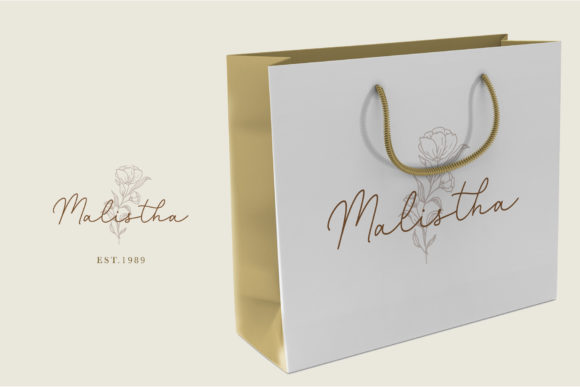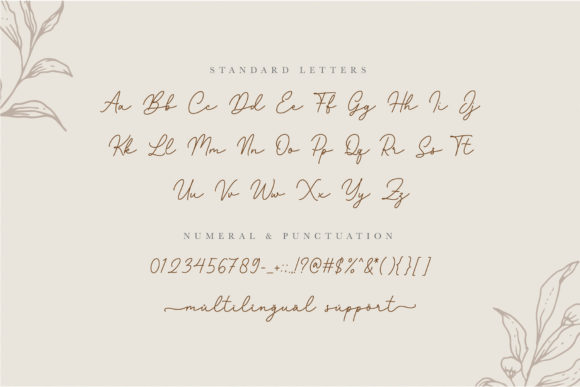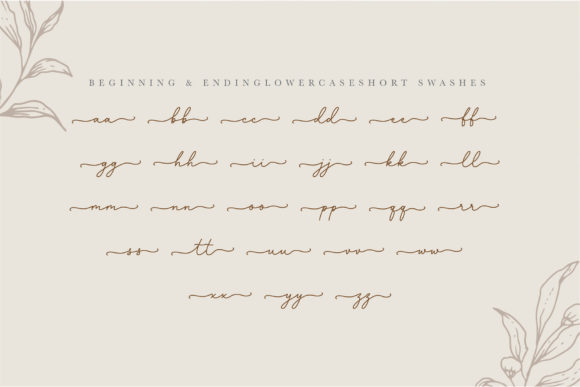
The Quest for the Perfect Font: Discovering Gatkins
I still remember the frustration of scrolling through font after font, searching for the perfect one to bring my design project to life. It was for a wedding invitation, and I wanted something that exuded romance and elegance. That’s when I stumbled upon Gatkins, a beautiful and romantic script font that has since become a staple in my design toolkit.
First Impressions: A Beautiful and Romantic Script Font
Gatkins is a stunning font that pays homage to classic calligraphy. Its varying baseline, smooth lines, gorgeous glyphs, and stunning alternates make it a true showstopper. But what really sets it apart is its PUA encoding, which allows you to access all the cute glyphs and swashes with ease!
- ✨ Elegant and romantic feel, perfect for wedding invitations, branding, and more
- ✅ Features a wealth of special features, including alternate glyphs and ligatures
- ✅ Smooth lines and gorgeous glyphs that add a touch of sophistication to any design
While Gatkins is an amazing font, there are a few things to keep in mind. For example, ⚠️ some users may find the font a bit too ornate for certain projects. Additionally, 🤔 the font may not be suitable for very small text sizes, as some of the details may get lost.
The Backstory Behind Gatkins
While the origins of Gatkins are shrouded in mystery, it’s clear that the font was designed with love and care. The creator of Gatkins was likely inspired by the classic calligraphy of the past, with a desire to create a font that would bring a touch of elegance and romance to modern design.
| Author | Sigit Dwipa |
Q: What is PUA encoding, and how does it work?
A: PUA (Private Use Area) encoding is a way of accessing special characters and glyphs within a font. In the case of Gatkins, PUA encoding allows you to access the font’s gorgeous glyphs and swashes with ease.
Q: Is Gatkins suitable for body text?
A: While Gatkins is a beautiful font, it’s best suited for headlines and titles rather than body text. The font’s ornate details and varying baseline can make it difficult to read in large blocks of text.